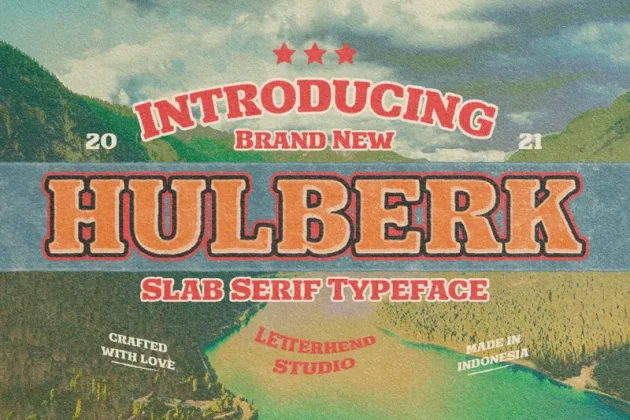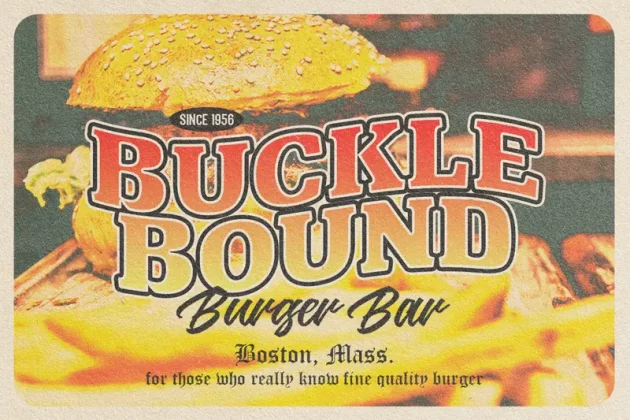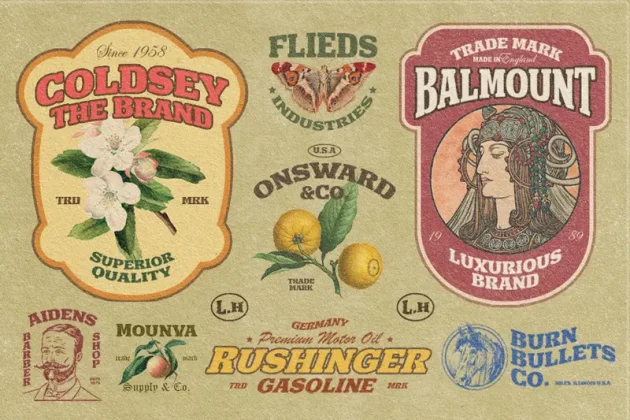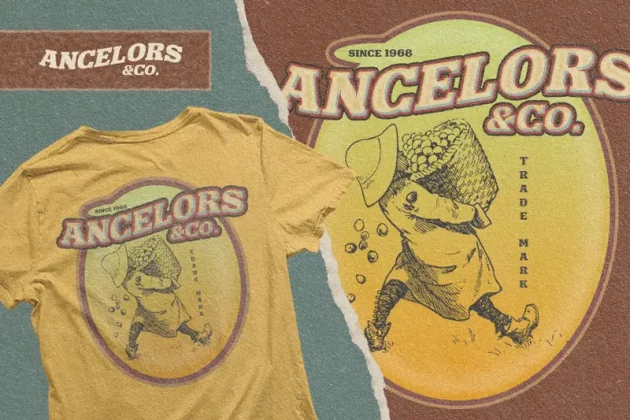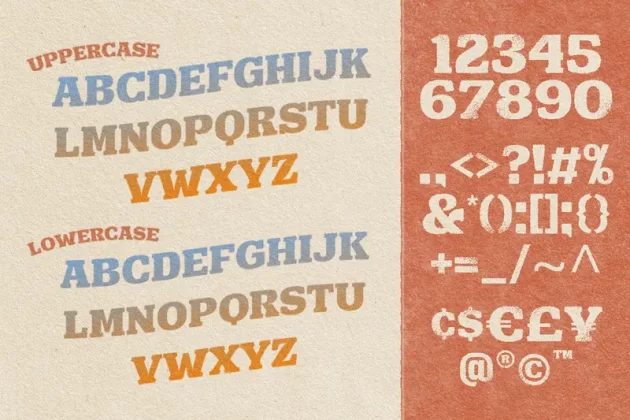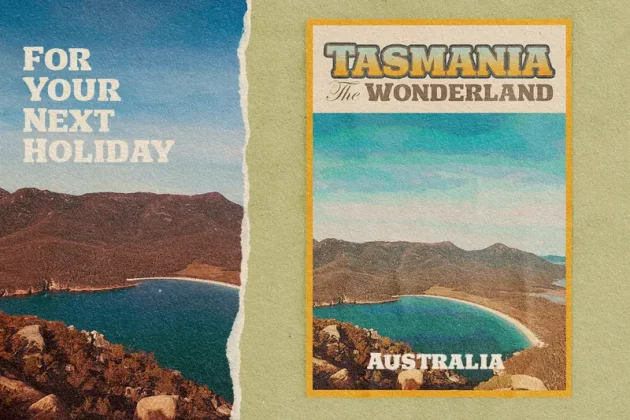
About Hulberk – a Nostalgic Slab Serif Font
Introducing, Hulberk, a slab serif typeface with nostalgic look and feel. Inspired from 60s and 70s signages, labels, and ads. This type of font perfectly made to be applied especially in logo, headline, signage and the other various formal forms such as invitations, labels, logos, magazines, books, greeting / wedding cards, packaging, fashion, make up, stationery, novels, labels or any type of advertising purpose.
Features :
- uppercase & lowercase
- numbers and punctuation
- multilingual